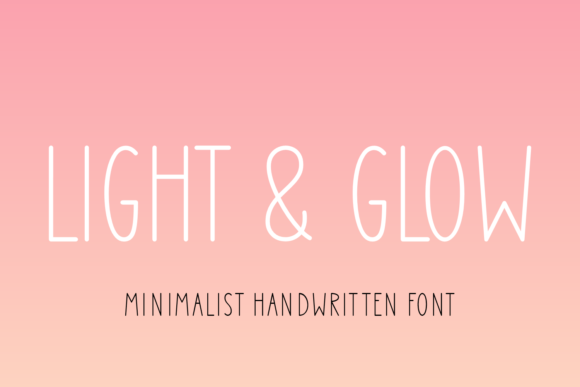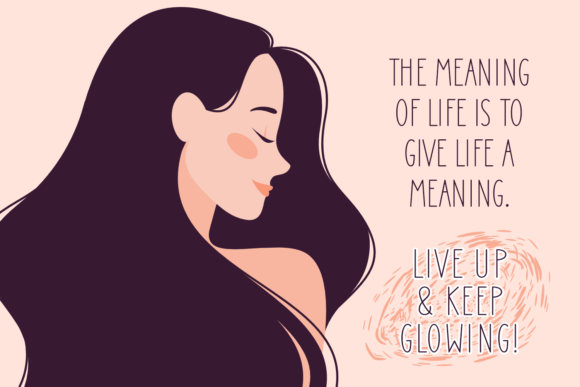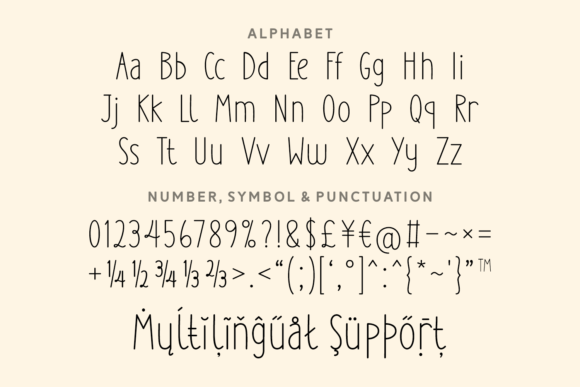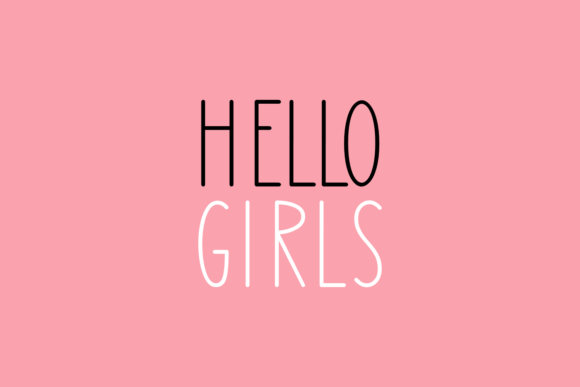
Light Glow Font
“Light Glow” is introduced as a simple and dainty handwritten font, presenting itself as a versatile typeface suitable for a wide range of creative projects. Whether applied to product packaging, name tags, posters, book covers, social media posts, apparel designs, or wedding invitations, this font aims to add a touch of elegance and charm.
The term “simple and dainty” immediately conveys the font’s visual qualities, suggesting an unassuming yet delicate aesthetic. This simplicity makes “Light Glow” an adaptable choice for various design contexts.
Describing it as “handwritten” implies an authentic and personalized feel, contributing to a more individualized touch in design. This characteristic often brings warmth and approachability to the visual communication.
The versatility of “Light Glow” is highlighted by suggesting its application to a broad spectrum of creative projects. From product packaging to wedding invitations, the font aims to seamlessly integrate into different design scenarios, emphasizing its flexibility.
The mention of “almost any creative project” underscores the font’s adaptability and willingness to complement a variety of design ideas. The intent is clear: “Light Glow” is positioned as a go-to choice for creatives looking for a font that can enhance their projects across diverse mediums.
In summary, “Light Glow” is presented as a simple and dainty handwritten font, with a focus on versatility. Its suitability for a range of creative projects, from product packaging to wedding invitations, positions it as a valuable tool for designers seeking an elegant and adaptable typeface to elevate their work.